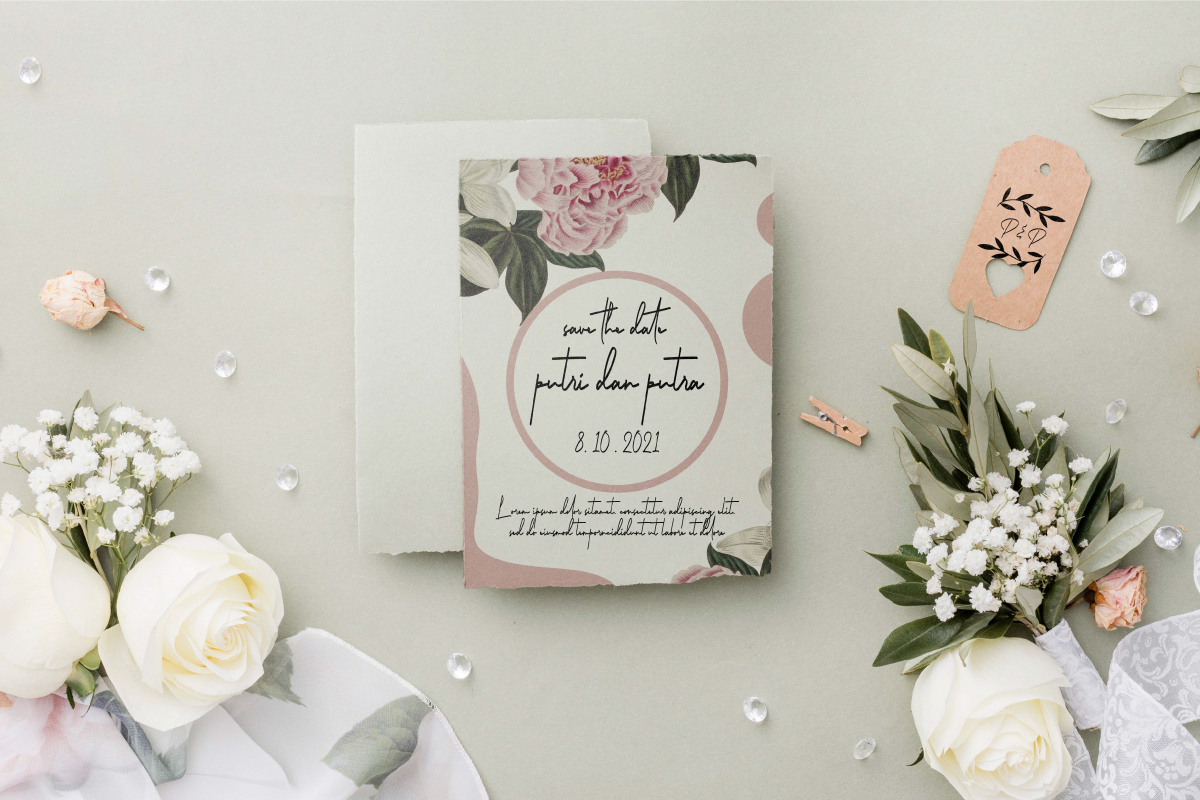
Audrey Sterling Font
Audrey Sterling Handwritten Font
It’s a beautiful signature font with handwriting style. This font is carefully crafted in every scratched to look natural so it can create a masterpiece that is perfect for any of your projects. This awesome script font would be perfect for any industry that requires elegance, such as author, café, cosmetic, events, fashion, florist, homeware, photography, publishing, wedding organizer, and more!
Audrey Sterling Font includes full set of Uppercase and Lowercase Basic Characters, Numerals and Punctuation. Also it contains swoosh, ligature, and alternate characters to create a natural signature look by adding more aesthetic and beautiful fonts to enhance your extraordinary projects. Audrey Sterling Font would be great for your projects such as branding logo, business card, label, magazine, product packaging, quote, signage, website, wedding invitation, title, etc.